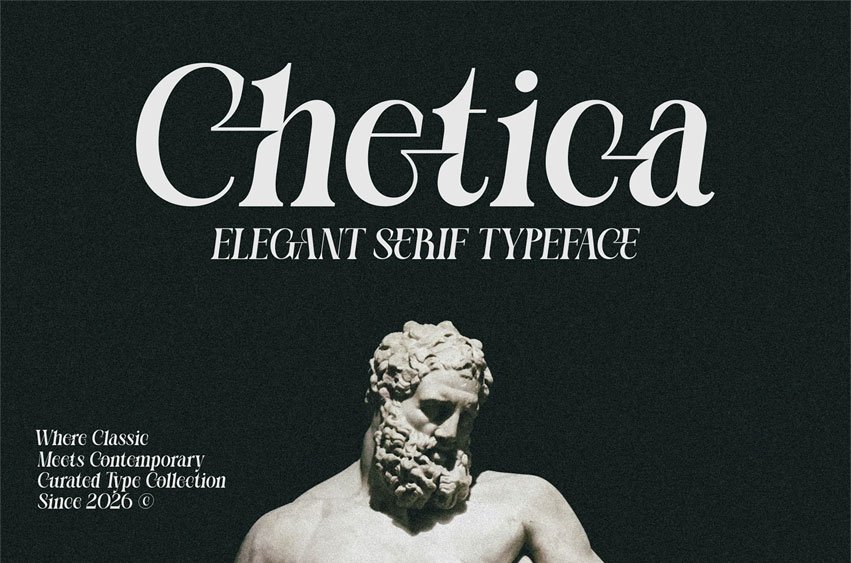
Chetica Font is an elegant serif typeface that gracefully bridges classic sophistication with modern refinement. Designed with high contrast strokes and sculptural letterforms, it delivers a luxurious and timeless aesthetic with a contemporary edge. Its distinctive curves and stylish ligatures create a sense of movement and harmony, making every word feel intentional and expressive.
The refined details—sharp serifs, smooth transitions, and balanced proportions—give Chetica a strong visual presence while maintaining readability. Perfect for high-end branding, editorial design, fashion campaigns, logos, and premium packaging, Chetica brings a bold yet graceful character to any composition. Whether used in large headlines or refined layouts, it adds depth, elegance, and a touch of drama.
- Ligatures & Alternates
Chetica is crafted for designers who seek beauty, sophistication, and a modern classic feel in every detail.